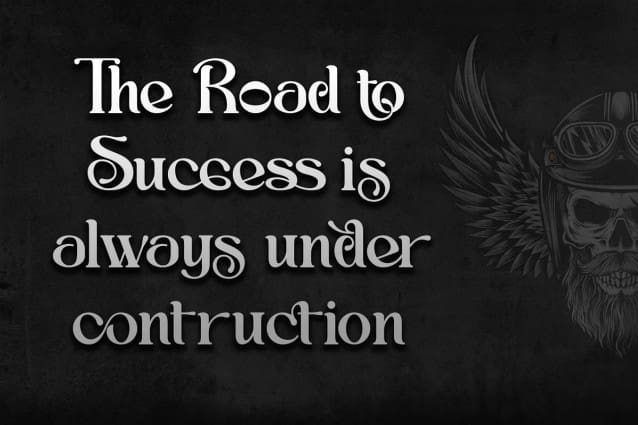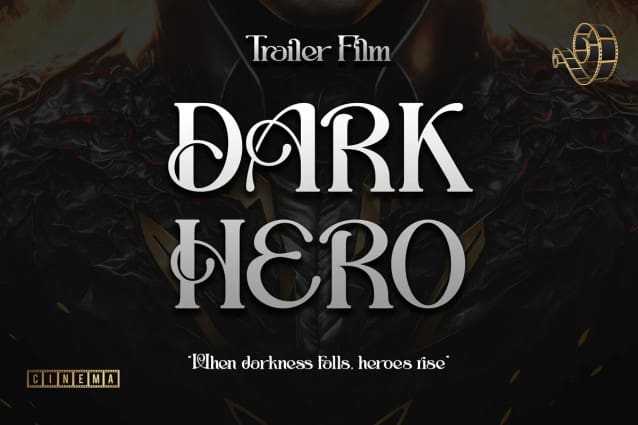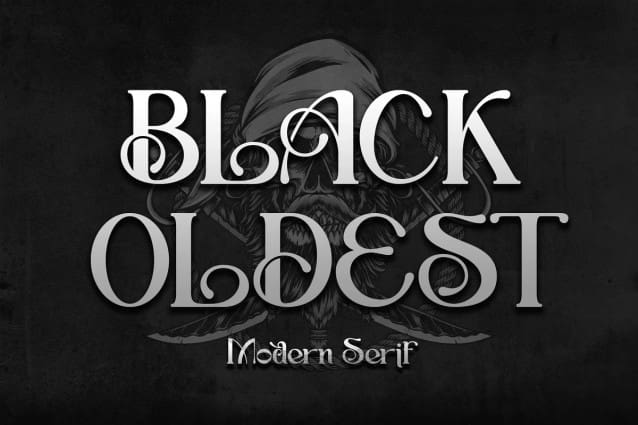
Black Oldest Font
Black Oldest Font a font that effortlessly blends style and bold. With its neat and clean design, this serif font is a versatile choice for a wide variety of designs, taking them to new heights of sophistication. Explore the possibilities as you unlock the potential of its alternates and ligatures, allowing you to create the perfect typography design.
Whether you’re working on a luxury logo and branding, a classy editorial design, magazines, packaging, posters, movies, brands, or art gallery branding, Black Oldest is the ideal companion for your upcoming projects. Embrace the possibilities and unleash your creativity with this PUA-encoded font, granting you access to all the captivating glyphs it offers. Elevate your designs with the timeless charm of Black Oldest and watch them come to life with elegance and grace.